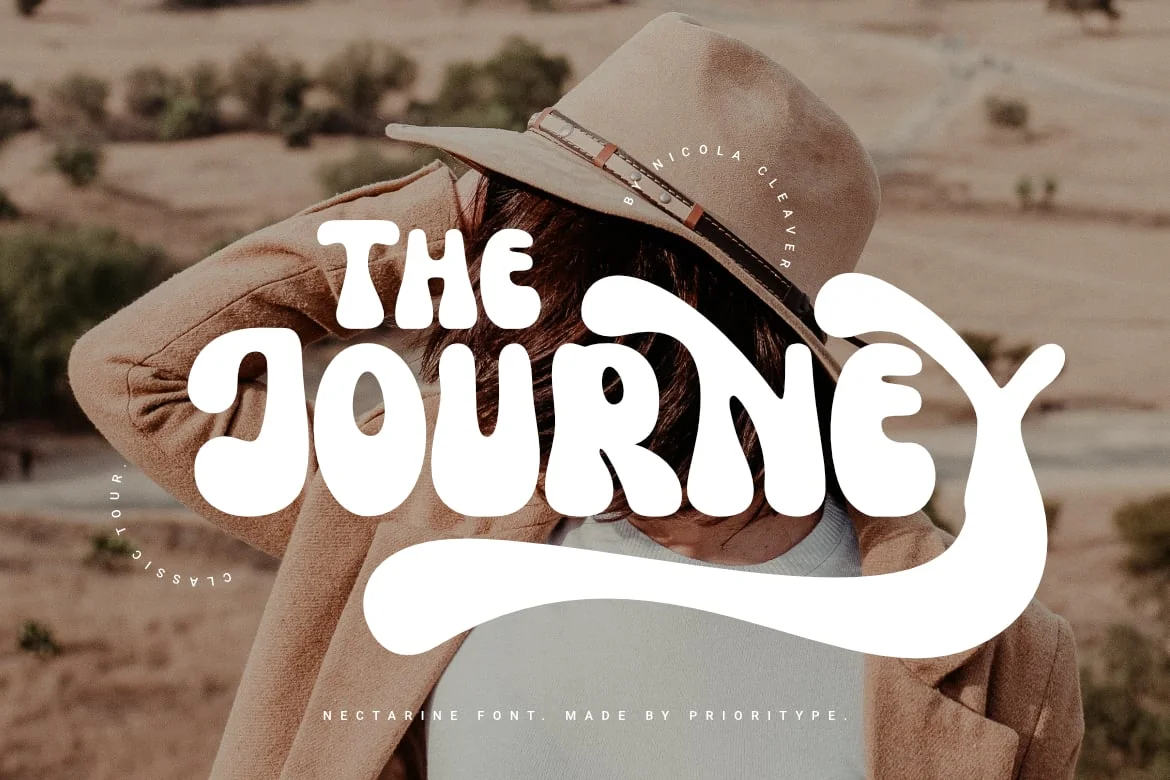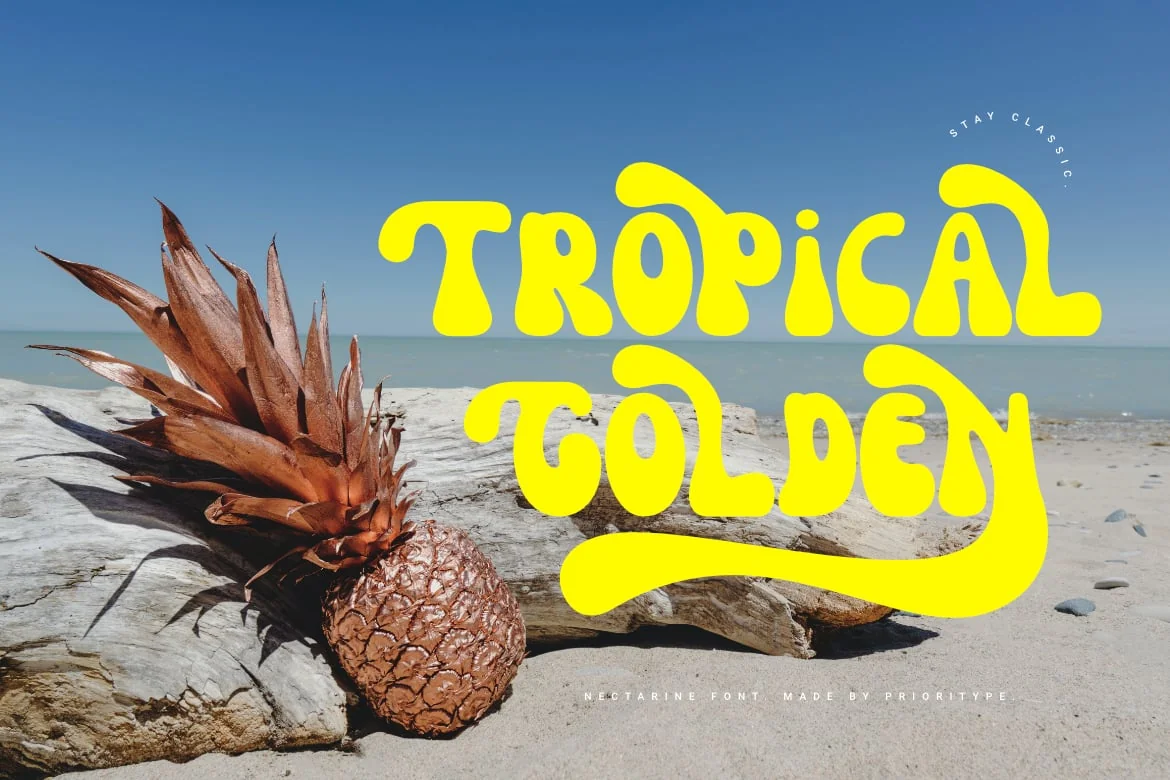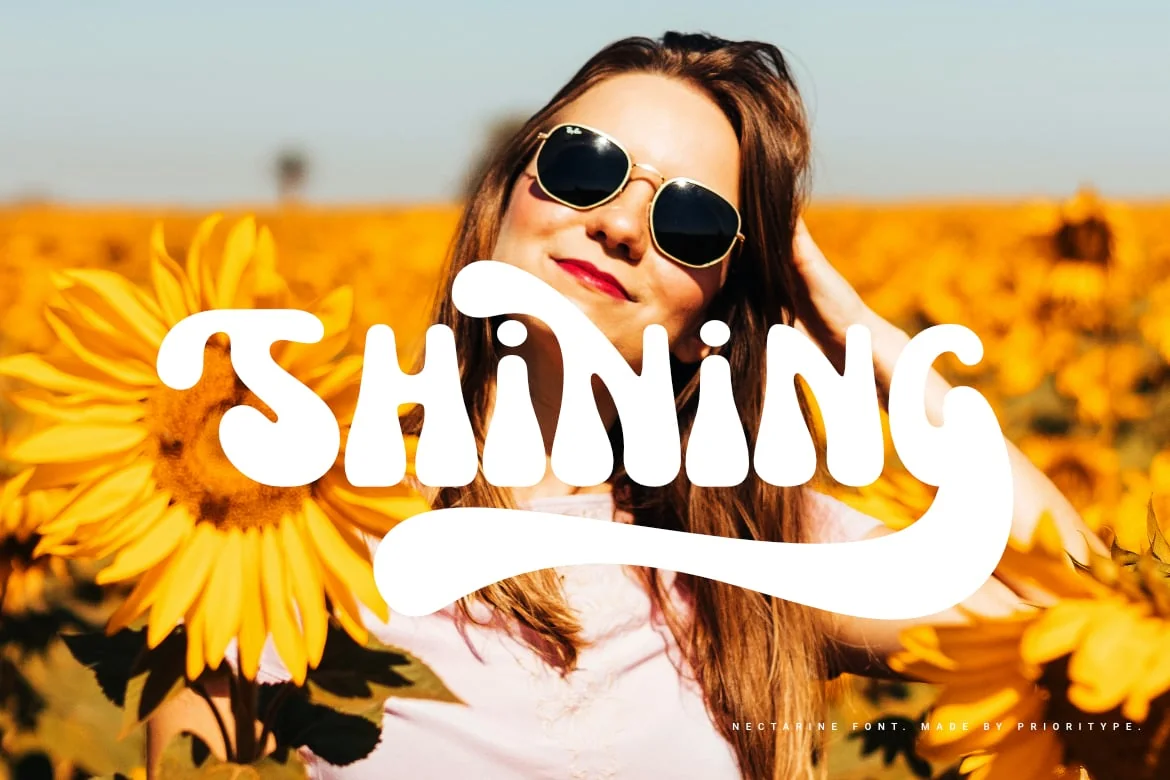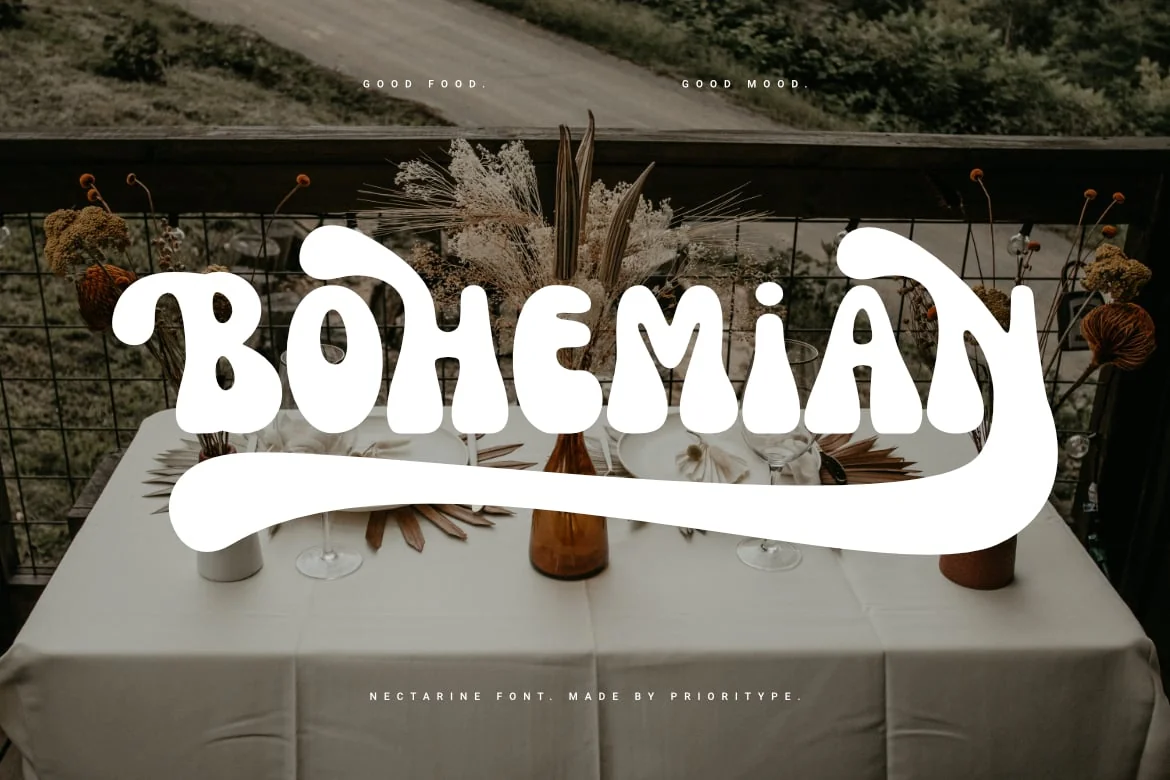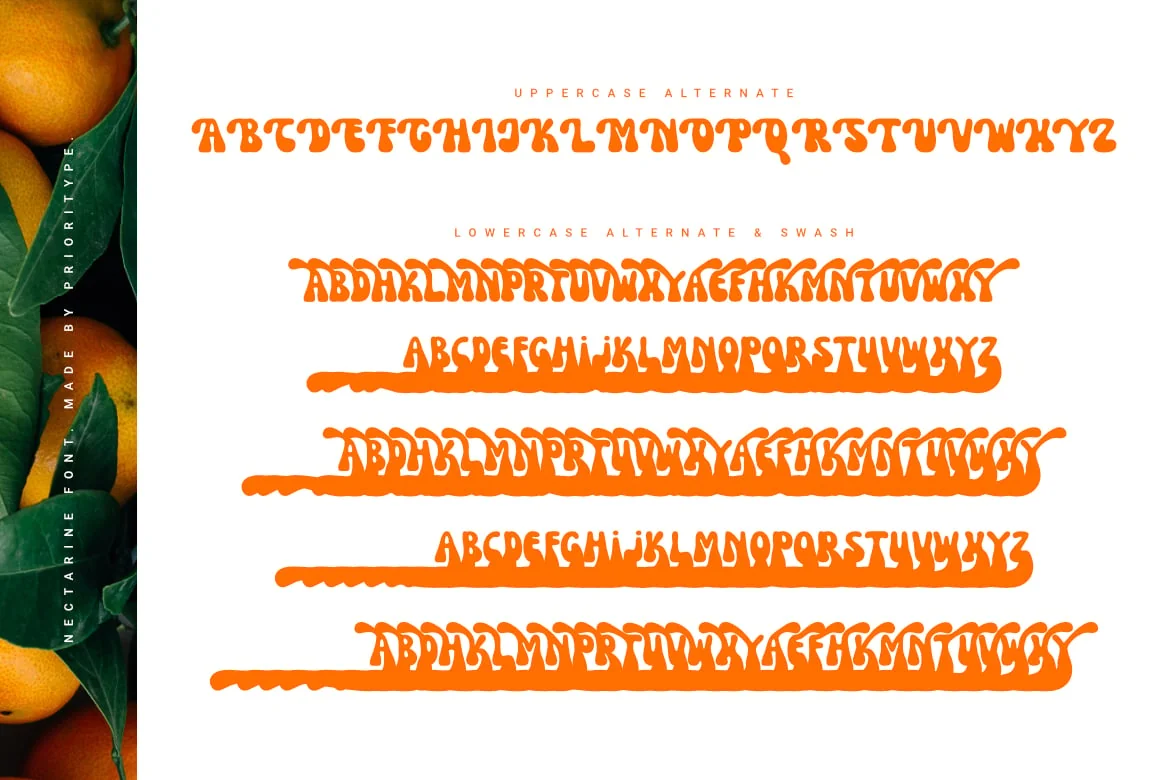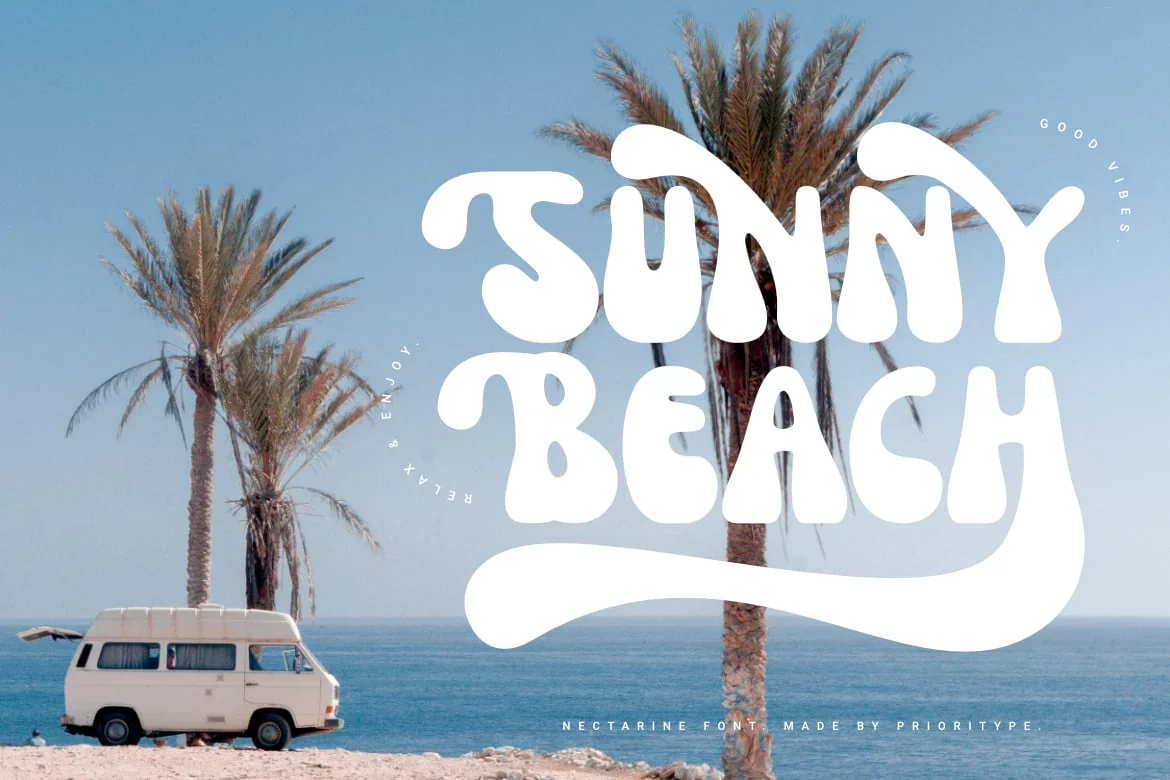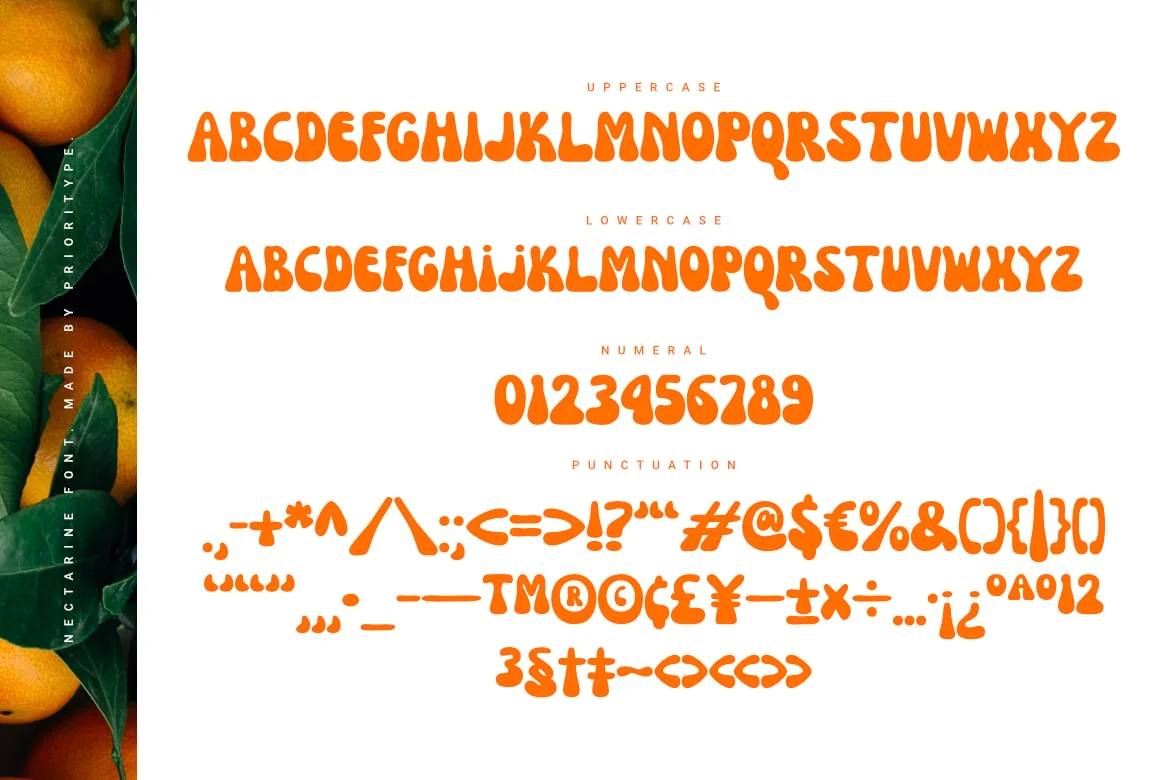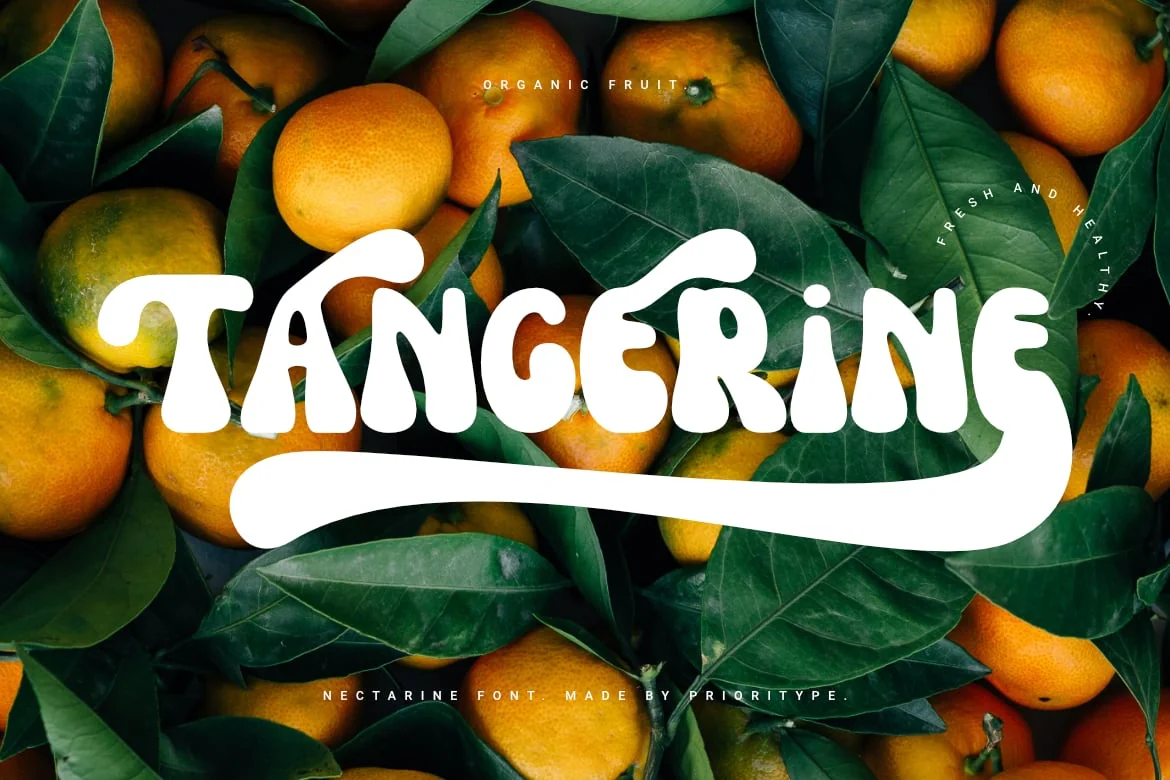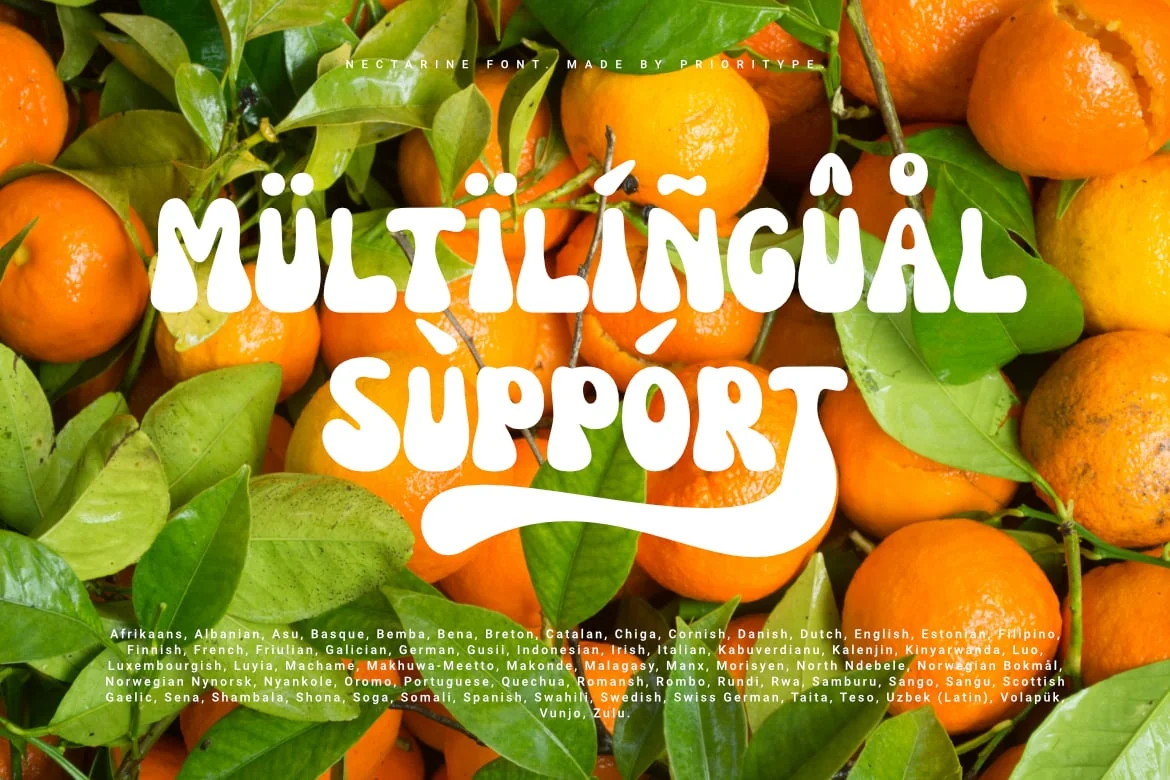
Nectarine – Display Font
Unique display font, looks chubby and fun with a classic and modern feel. Equipped with a lot of alternative characters for you to customize. It is suitable for displaying your designs such as the design of social media posts, magazines, posters, stickers, landing pages and much more.
- Features: Uppercase, Lowercase, Numeral, Punctuation, Multilingual, Alternates, Ligatures, & PUA Encoded.